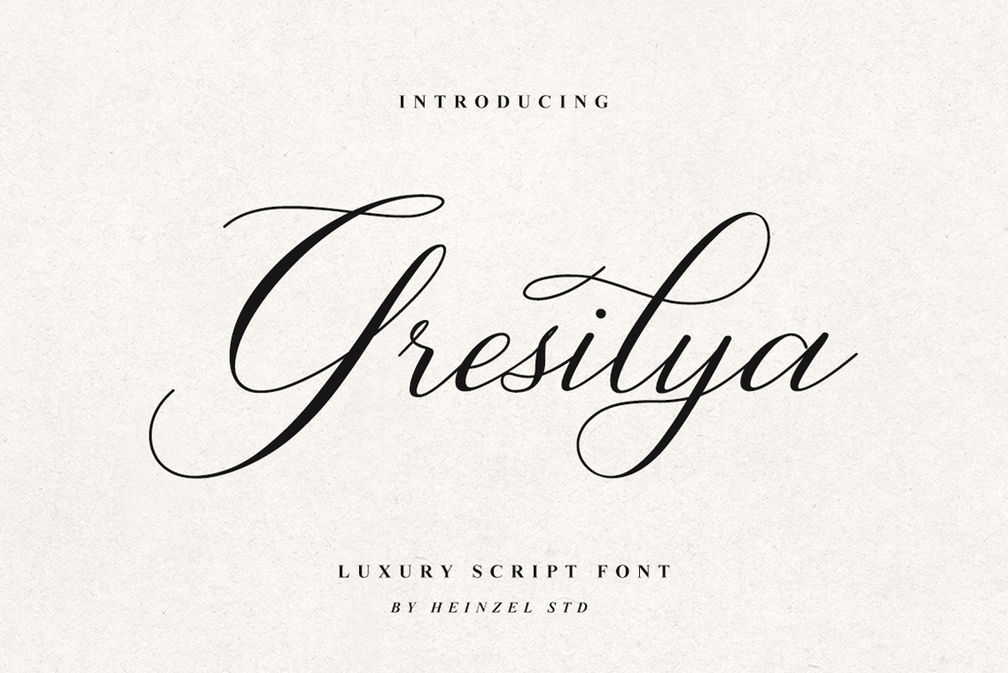
Gresilya Calligraphy Font
Introducing Gresilya, a sophisticated calligraphy font designed to bring elegance and charm to your creative projects. With its flowing curves, stylish swashes, and luxurious letterforms, Gresilya is the perfect choice for wedding invitations, fashion branding, editorial design, signature logos, greeting cards, and upscale packaging.
This versatile script font captures the essence of timeless calligraphy while maintaining modern readability. Its refined details make every word look artistic, professional, and captivating.
Whether you’re crafting a romantic design or elevating your brand identity, Gresilya ensures your work stands out with beauty and sophistication.
Highlights:
Elegant and luxurious calligraphy style
Perfect for weddings, logos, branding, and invitations
Beautiful ligatures and stylish letter connections
High-quality font with timeless appeal
Bring a touch of refinement and artistry to your designs with Gresilya Calligraphy Font.